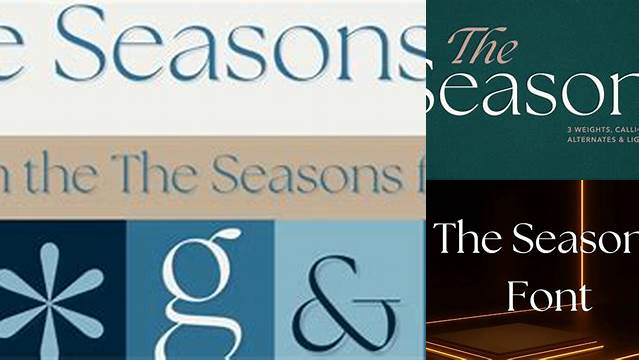
Hey everyone! Are you on the hunt for a beautiful, elegant font to spice up your designs? Well, look no further! Today, we're diving headfirst into the world of typography and focusing on something truly special: The Seasons Light Font. And guess what? You can download it for free! So, buckle up, because we're about to explore everything you need to know about this gorgeous font, from where to snag it to how to use it to make your projects shine. Let's get started, shall we?
Understanding The Seasons Light Font: A Quick Overview
Before we get to the good stuff (the free download!), let's get acquainted with The Seasons Light Font. This isn't just any font; it's a delicate, refined typeface that exudes a sense of sophistication and charm. Think of it as the visual equivalent of a gentle breeze on a sunny day. Designed with a focus on legibility and aesthetics, The Seasons Light Font is perfect for a wide range of projects, from invitations and greeting cards to website headers and social media graphics. Its clean lines and graceful curves make it incredibly versatile, allowing it to seamlessly blend into various design styles. This font is usually classified as a serif font, but it has a modern twist, making it suitable for both classic and contemporary designs. The designer likely put a lot of thought into the balance between readability and artistic flair, resulting in a font that is both functional and visually appealing. You'll notice the careful attention to detail in each letter, making it a pleasure to read and a delight to use. So, if you are looking for a font that can add a touch of elegance to your work, The Seasons Light Font is an excellent choice.
This font isn't just about aesthetics, it's about making a statement. Its subtle beauty captures attention without being overpowering. This is important because in design, the font has to complement the message. If the font is too loud, it will steal the attention of the reader and distract them from the content. The perfect font should blend into the background, allowing the core message to pop. The designer was probably trying to make a font that is both beautiful and functional when creating this font. That's why it is perfect for designers of all levels, from the novice to the experienced.